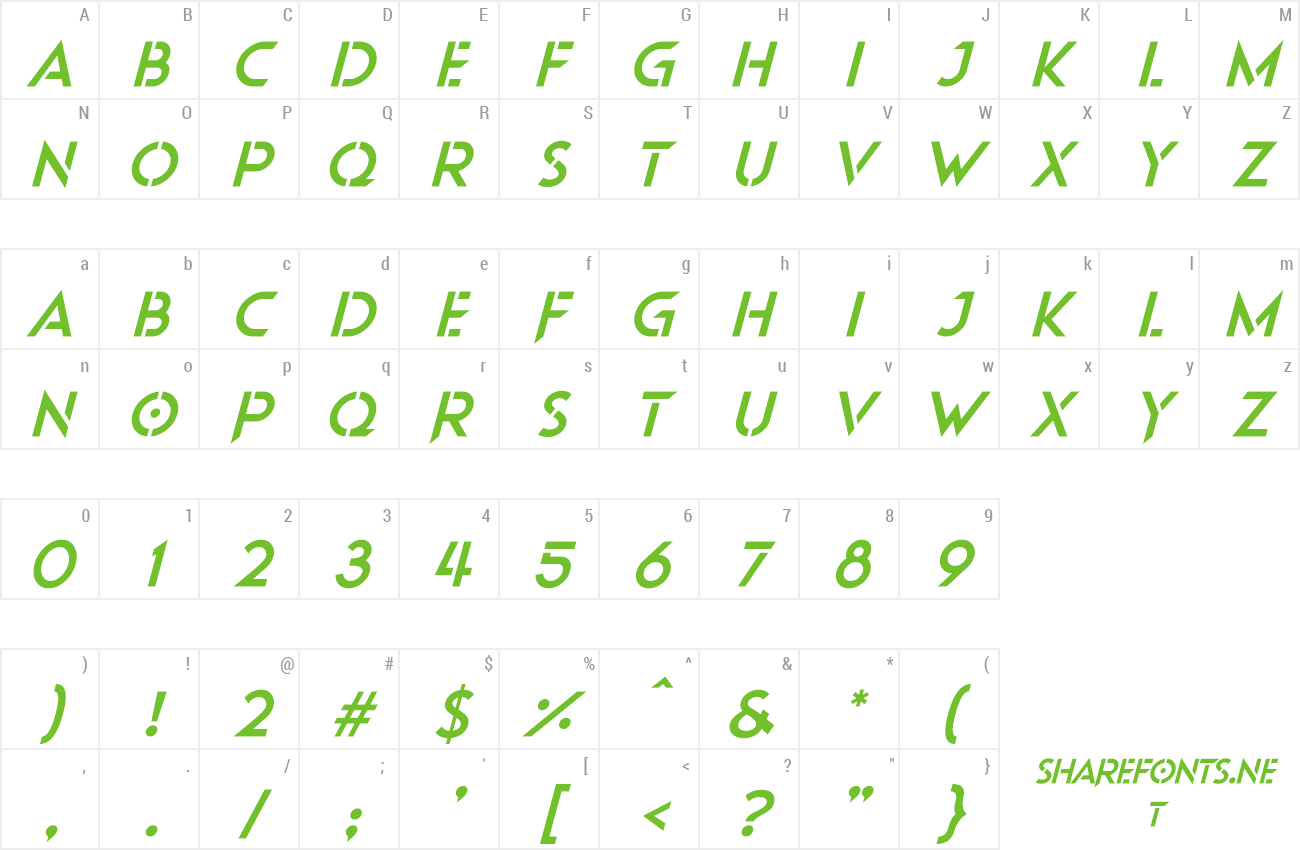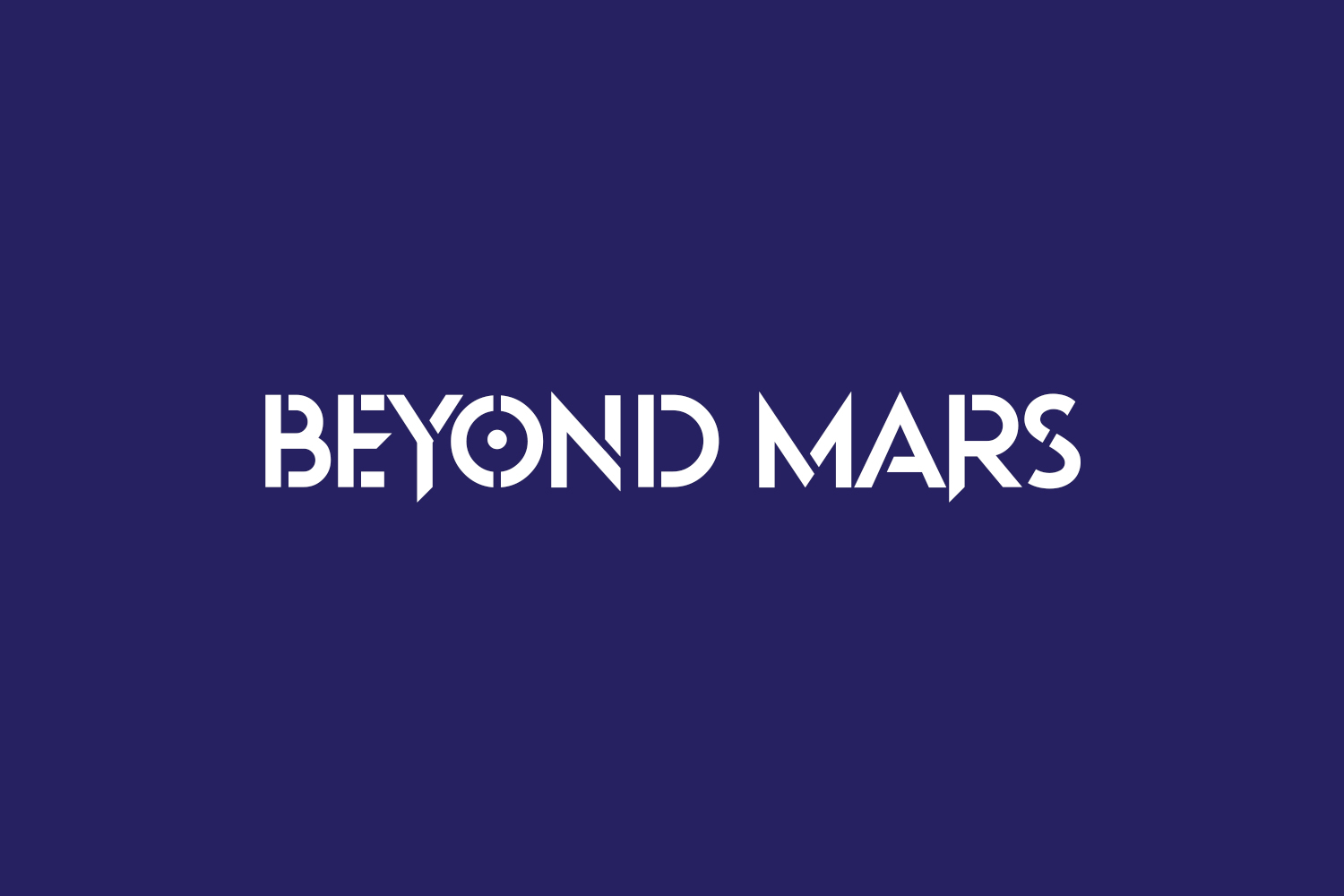
Beyond Mars Font
Beyond Mars Font - Web beyond mars font is a futuristic stencil typeface designed by darrell flood. Web this font, created by darrell flood, is free to use for personal use (tho i appreciate donations!) please give as much as you. This font is free to use for personal use (tho i.
Web Beyond Mars Font Is A Futuristic Stencil Typeface Designed By Darrell Flood.